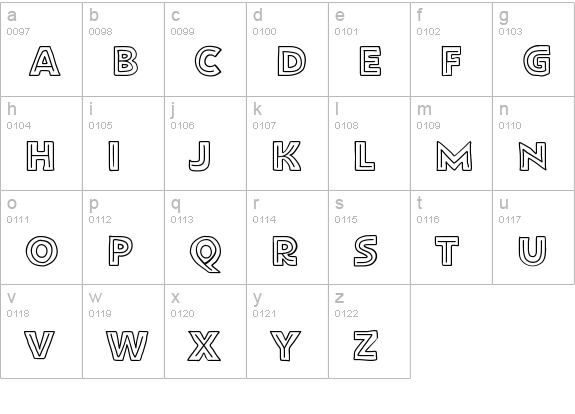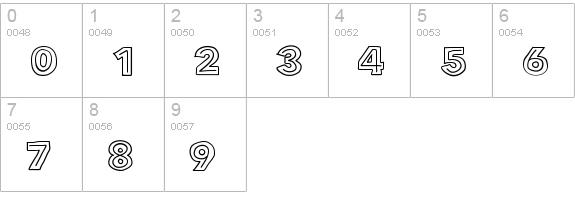
FlatBreadInline Font Details
Introducing FlatBreadInline font, a stunning and versatile typeface that will elevate your designs to new heights. This unique font combines modern elegance with a touch of playfulness, making it perfect for a wide range of projects. With its clean and distinctive lines, FlatBreadInline font is sure to capture attention and leave a lasting impression. Whether you're designing a logo, creating eye-catching headlines, or crafting beautiful invitations, this font will add a touch of sophistication and style to any design. But what sets FlatBreadInline font apart is not just its captivating aesthetics – it's also the fact that it is absolutely free! That's right, this amazing font is freely available for download at FontsMarket.com. Now you can enjoy the beauty and versatility of FlatBreadInline font without breaking the bank. Designed with utmost attention to detail, FlatBreadInline font offers a wide range of characters, including uppercase letters, lowercase letters, numerals, punctuation marks, and special symbols. Its extensive character set ensures that you have all the tools you need to bring your creative visions to life. Whether you're a professional designer or a hobbyist, FlatBreadInline font is a must-have in your font collection. Its sleek and modern design will add a touch of sophistication to any project, while its versatility makes it suitable for a wide range of styles and themes. So don't miss out on this incredible opportunity to enhance your designs with the stunning FlatBreadInline font. Download it for free today at FontsMarket.com and unlock a world of creative possibilities.